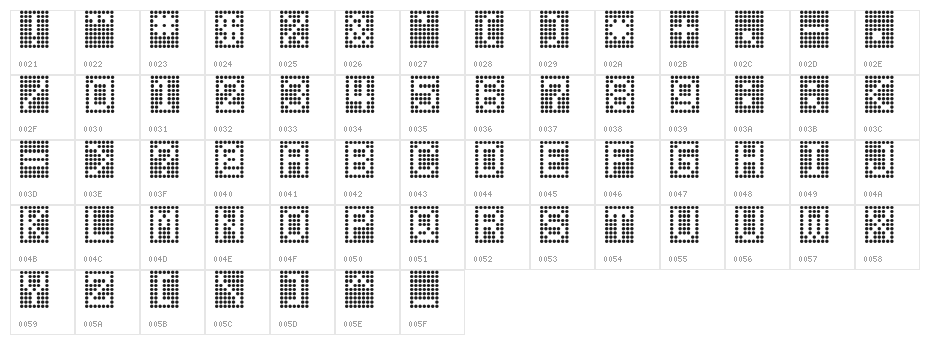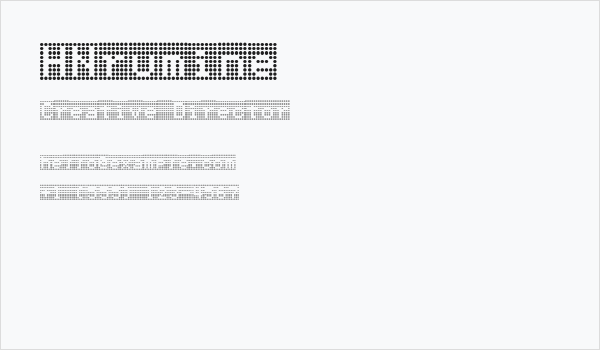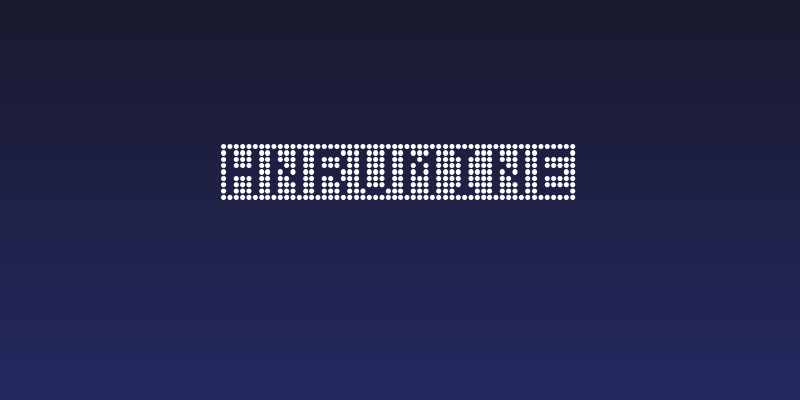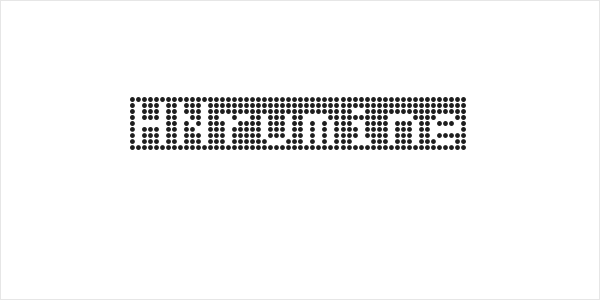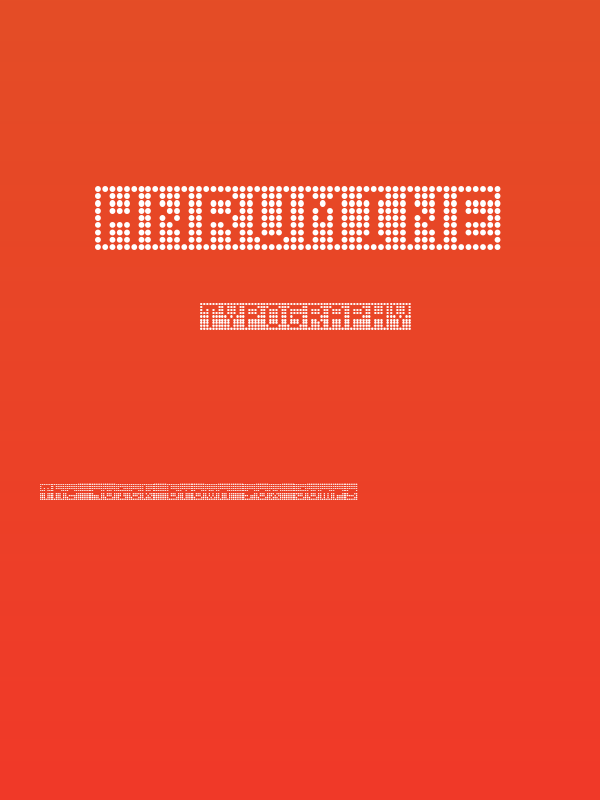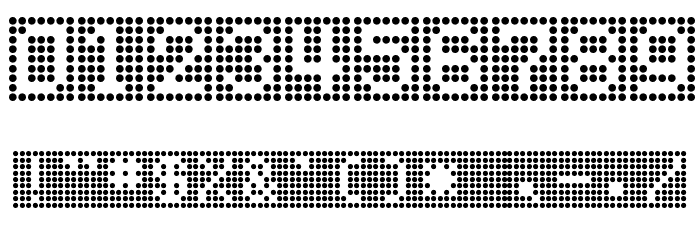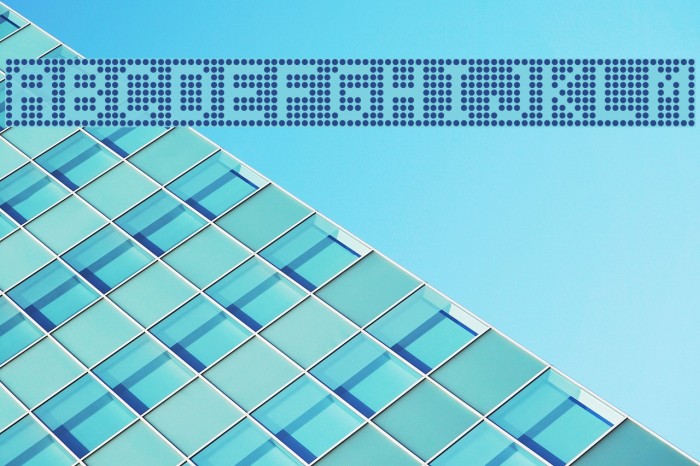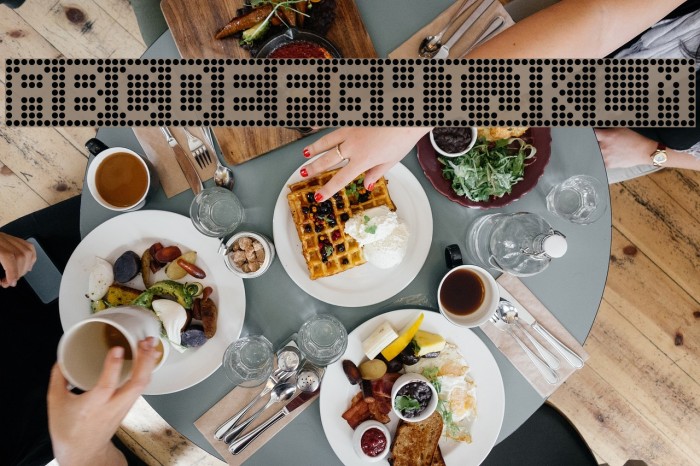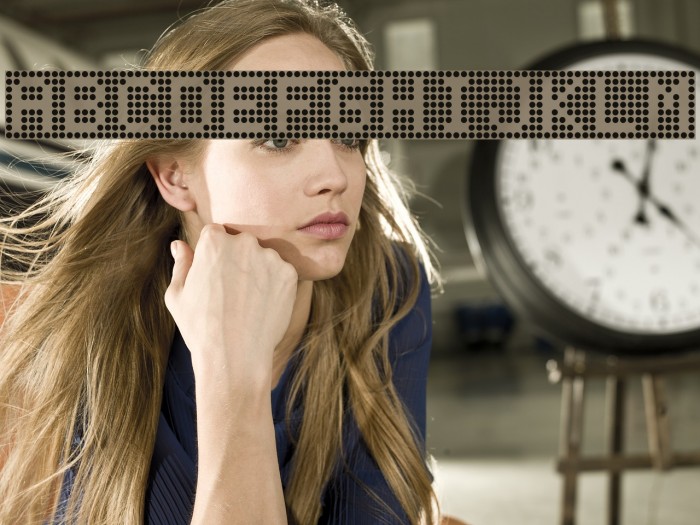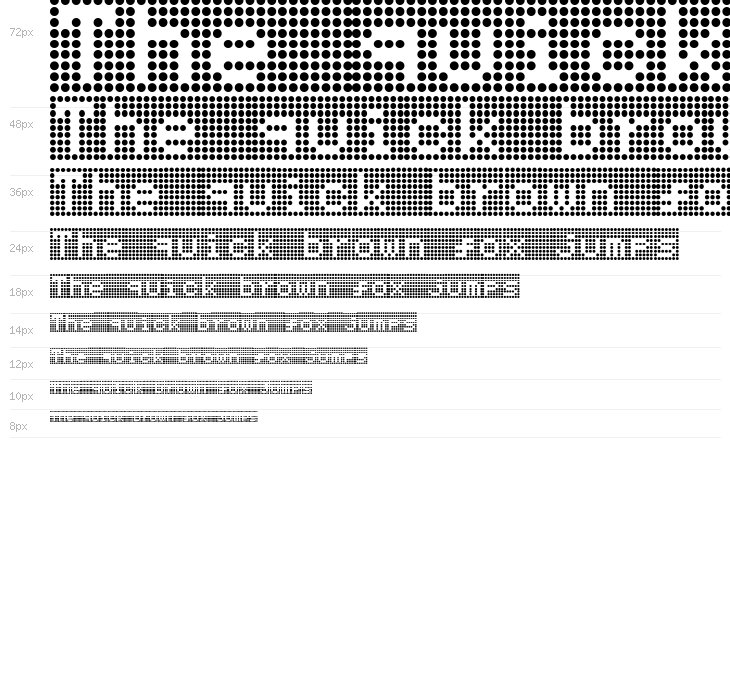
HNrumine Font
HNrumine Description
This font is a unique and creative display typeface composed entirely of small, evenly spaced dots. Each character is formed by arranging these dots in a grid-like pattern, creating a pixelated effect that is both modern and playful. The uniformity of the dots gives the font a consistent texture, while the geometric arrangement provides a sense of structure and order. This font is particularly eye-catching and would stand out in any design project that requires a bold and unconventional aesthetic. Its distinct style makes it suitable for digital displays, tech-themed projects, or any creative endeavor that seeks to incorporate a futuristic or digital feel.
| Proposed Projects | Ideal for digital displays, tech-themed designs, creative posters, and futuristic branding. |